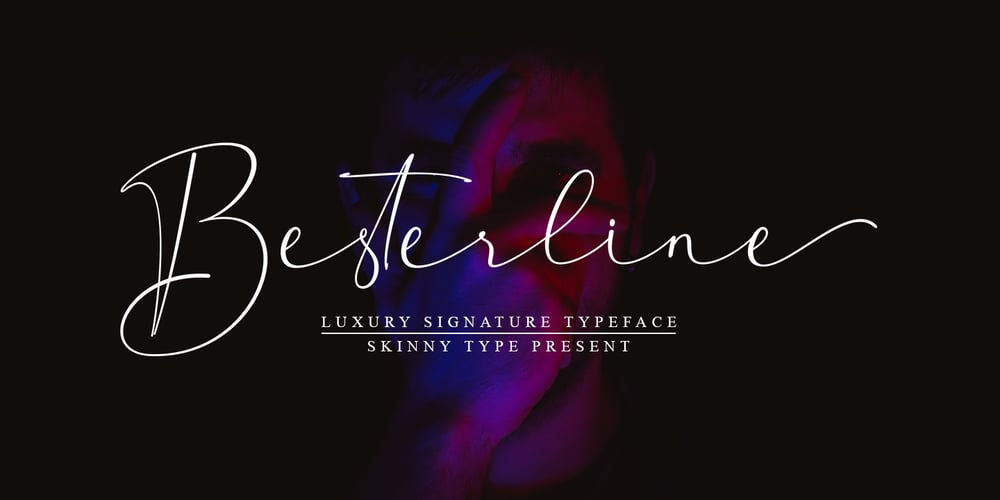
Besterline
Besterline font
Besterline Font Family was designed by Muhajir and published by Skinny Type. Besterline contains 1 styles and family package options. Besterline is a signature Font with a handwritten and script style make this font looks elegant, natural, stylish and perfect for any awesome projects that need signature taste.Besterline would perfect for photography, watermark, social media posts, advertisements, logos & branding, invitation, product designs, label, stationery, wedding designs, product packaging, special events or anything that need signature taste.What’s include :- Besterline OTFHappy Designing